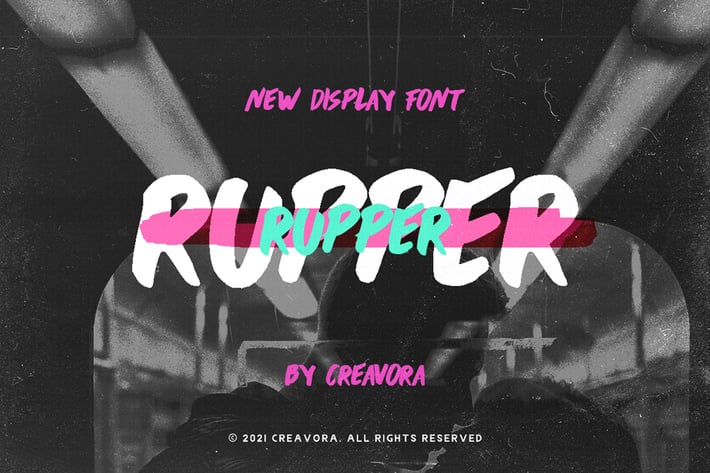
Rupper - Display Font
Introducing Rupper - Display Font
Looking for a new large-size font for headings? Consider Rupper, a regular italic font that looks tough inside and out. It looks great on the headline, banners, and many more. Grab the free font and take your projects to the next level.